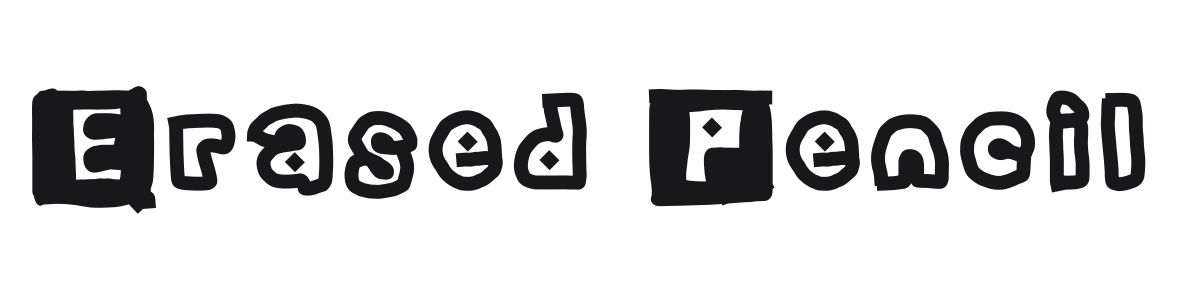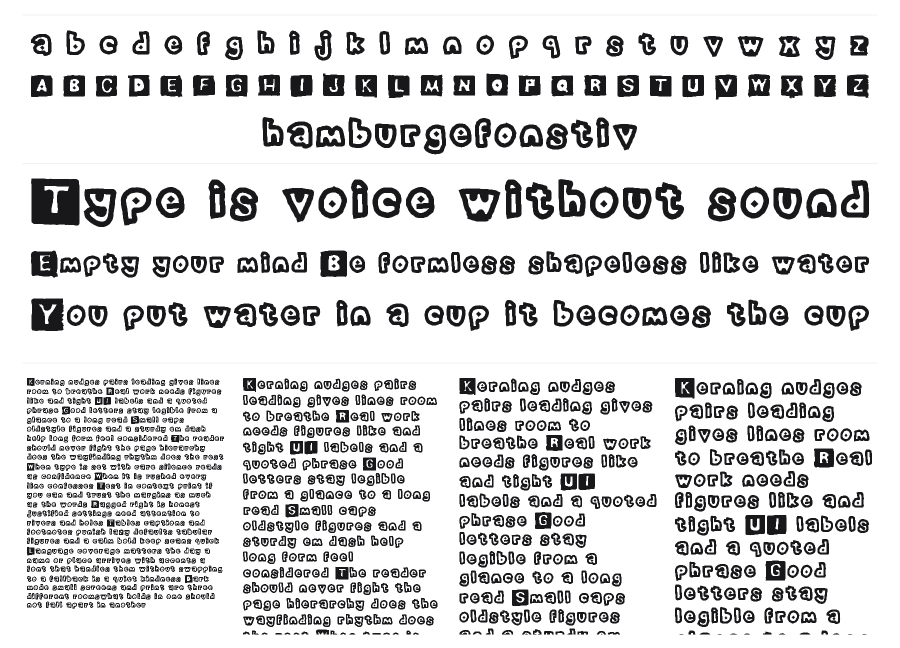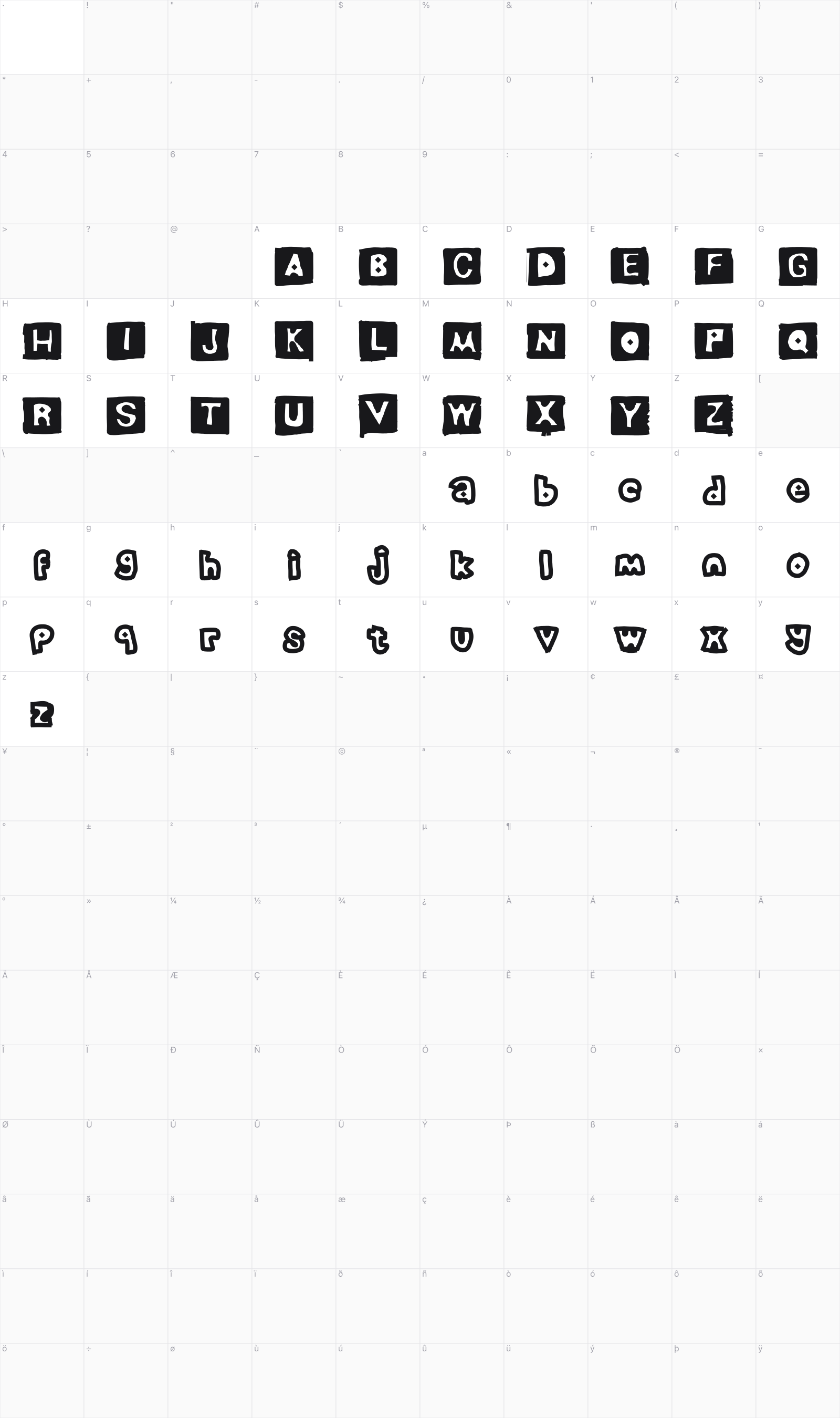
Erased Pencil
Erased Pencil is a chunky, rounded display font with a hand-doodled quality that feels like letters sketched and half-rubbed out on paper. The bold strokes carry inset white counters that give each character a bubble-like depth. It brings a loose, cartoonish energy to titles, packaging, and anything aimed at a younger or playful audience.